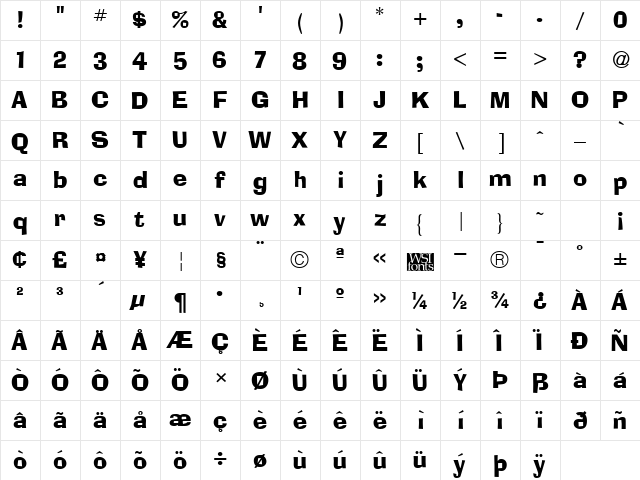
Krebbs Regular
Design Context for Krebbs Typeface
Krebbs offers clean, dependable letterforms without strong stylistic allegiance, making it a practical choice for designers who need flexibility.
Pro Tip: Pair Krebbs with a font of contrasting weight or personality to build a more expressive typographic hierarchy.